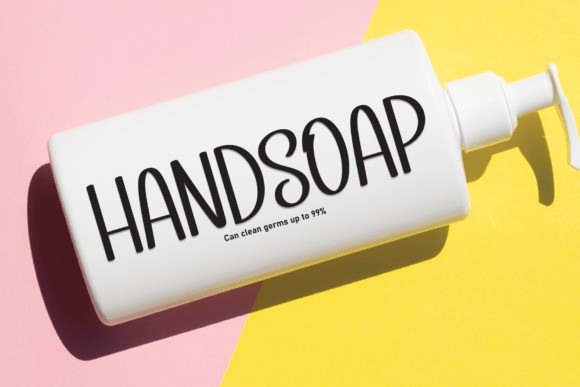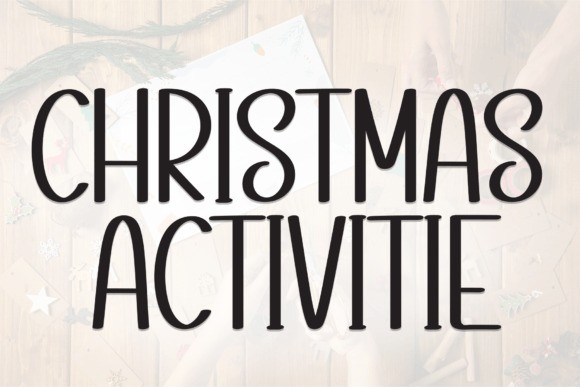
Christmas Activitie Font
Christmas Activitie Font is a festive tall display font that captures the holiday spirit with its playful and bold design. Perfect for adding a touch of joy to your seasonal projects, this font exudes warmth and cheer, making it ideal for headlines, invitations, and any creative endeavor that celebrates the magic of Christmas.